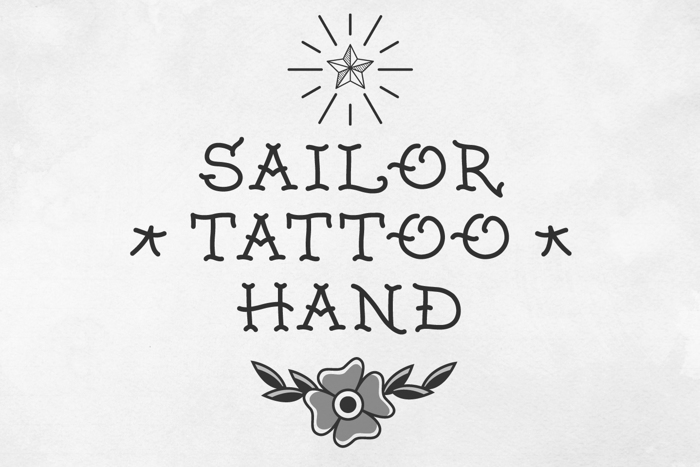
Sailor Tattoo Hand Font
Sailor Tattoo Hand Regular is a hand-drawn monoline serif tattoo script designed for flash painters and merch designers. This typeface is inspired by classic traditional flash in the style of the legendary Sailor Jerry. It features European and accented characters, punctuation, and more.
The full version of Sailor Tattoo Hand also features a whole host of in-fill symbols stored in the Private Use Area. You can access all of the characters through your Character Map. The full version download also includes Sailor Tattoo Hand Modern, an alternate version with a thicker line weight and less ornamentation: